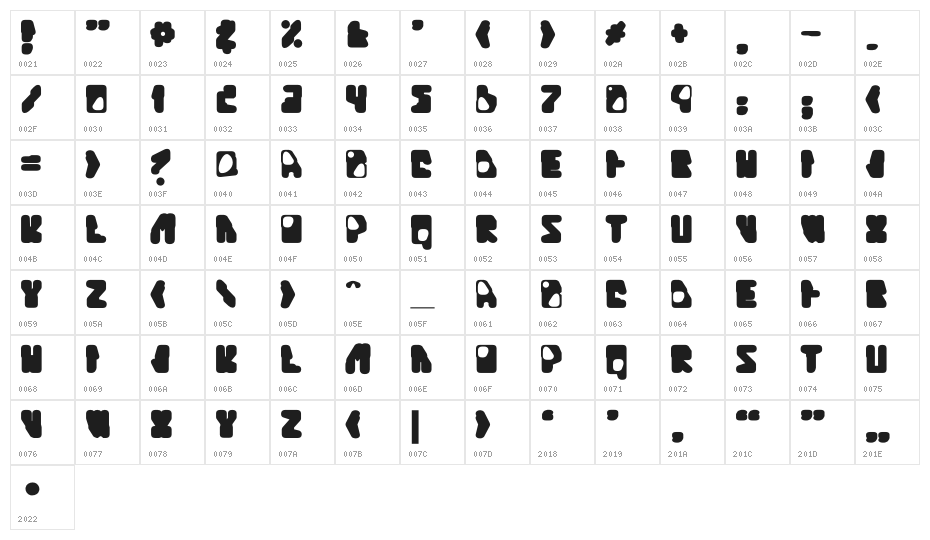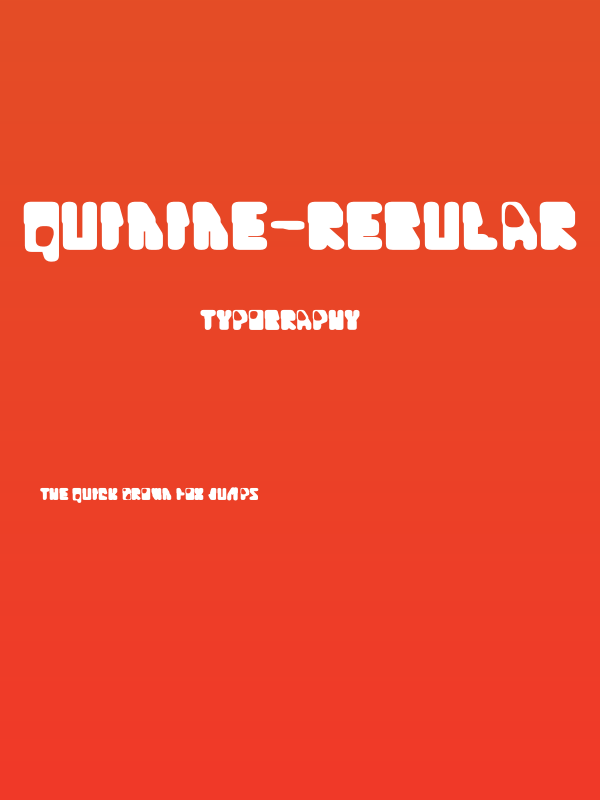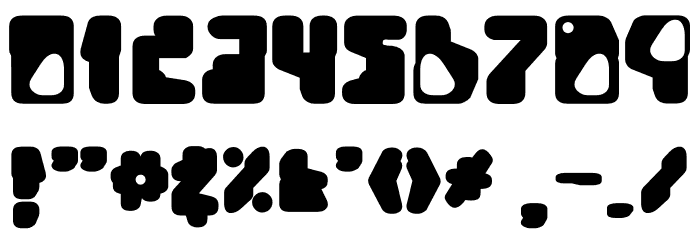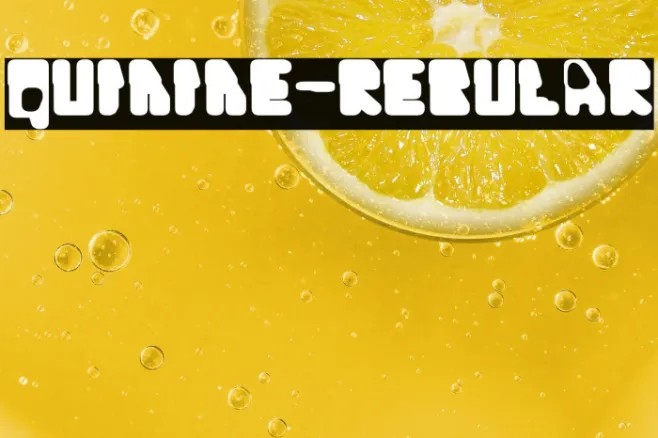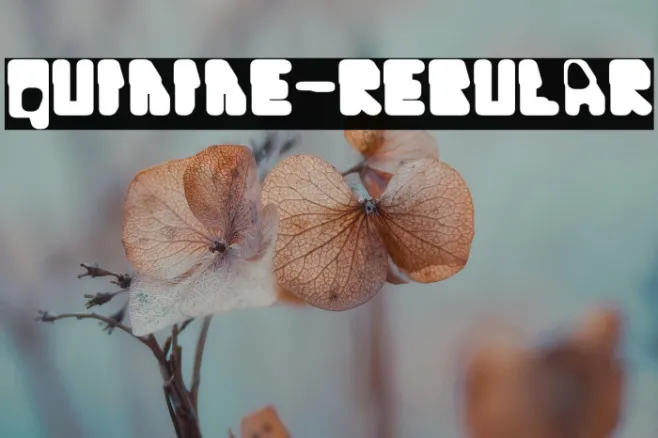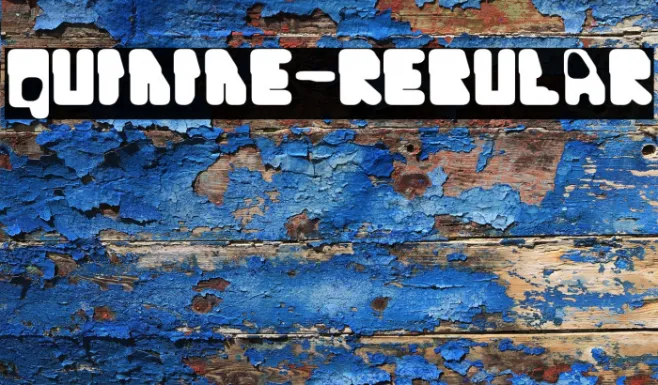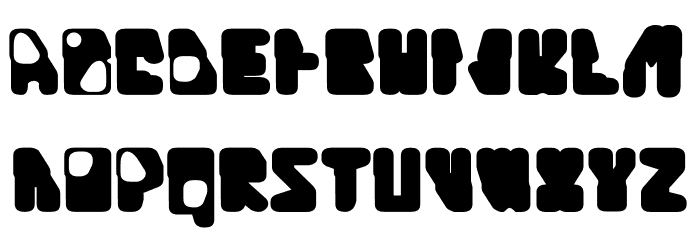
Quinine-Regular Font
Quinine-Regular Description
This font features a bold and playful design with a distinctly modern and geometric aesthetic. Each character is crafted with a unique, rounded shape, creating a sense of movement and fluidity. The letters are thick and substantial, providing a strong visual impact. The style is reminiscent of retro and futuristic designs, making it ideal for creative and eye-catching projects. The font's boldness is balanced by its smooth curves and rounded edges, which add a touch of softness and approachability. Its unique character shapes make it stand out, ensuring that any text set in this font will capture attention.
| Proposed Projects | Ideal for branding, posters, album covers, and any project requiring a bold, eye-catching typeface. |